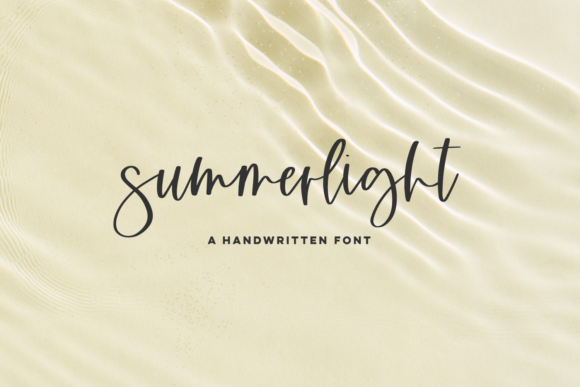
Welcome to the world of Summerlight Script Font, an enchanting and graceful handwritten font that will captivate your designs with its delicate strokes and elegant curves. This masterpiece from the creative studio of BeckMcCormick is not just a font; it's an expression of artistry, a whisper of elegance, and a symphony of visual delight.
As you explore the depths of Summerlight Script's character set, you'll be mesmerized by its distinct and well-balanced letters, each crafted with meticulous care and attention to detail. The result is a harmonious fusion of classic charm and modern sophistication, perfect for adding a touch of timeless beauty to your creative projects.
With Summerlight Script's incredibly versatile style, the possibilities are endless. Let your imagination soar as you use this remarkable font to create stunning logos, eye-catching social media graphics, enchanting wedding invitations, heartfelt greeting cards, and so much more. Its delicate strokes will add a touch of refinement to your branding materials, while its elegant curves will bring a sense of sophistication to your personal designs.
Whether you're a seasoned designer or just starting to explore the world of typography, Summerlight Script is the perfect companion for your creative journey. Its user-friendly nature makes it accessible to everyone, while its captivating beauty will elevate your designs to new heights.